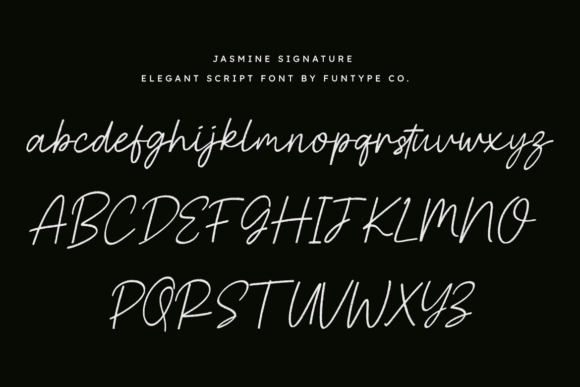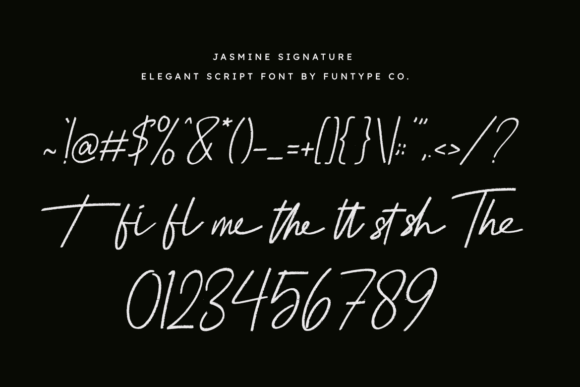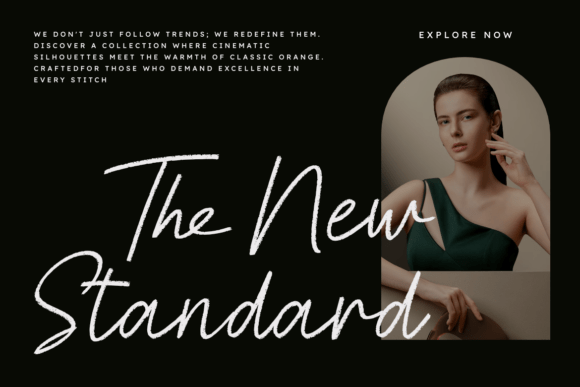
Introduction to Jasmine Signature Font
Jasmine Signature is an authentic, hand-drawn script font that captures the beauty of natural handwriting.
With its elegant monoline strokes and organic feel, this font is designed to add a personal and sophisticated touch to your creative projects It brings a sense of intimacy and grace that only a handcrafted signature can provide.
Key Features of Jasmine Signature Font
Why Choose Jasmine Signature Font?